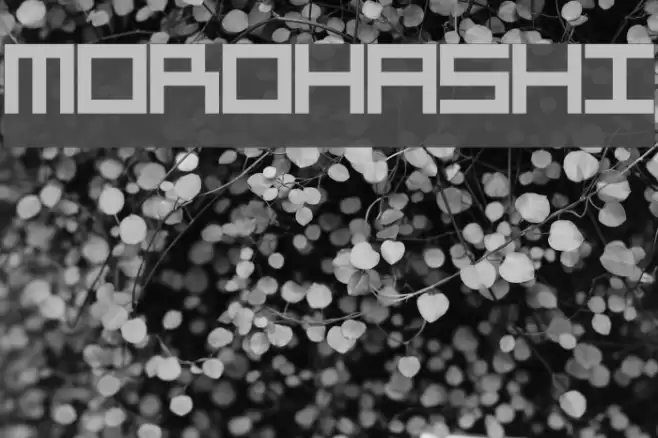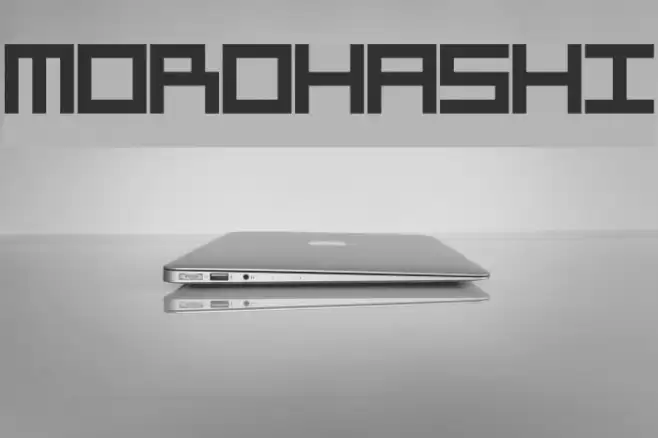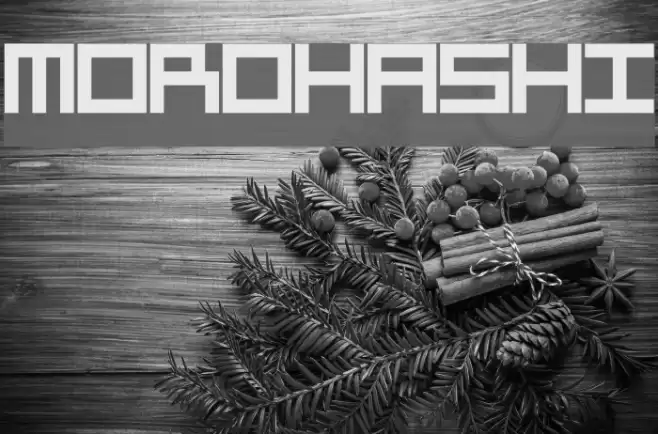
Morohashi Font
Morohashi Description
This font features a bold, geometric design with a pixelated, block-like appearance. Each character is constructed with sharp, angular edges and a consistent stroke width, giving it a digital, retro aesthetic reminiscent of early video game graphics. The uniformity in height and width across characters creates a cohesive and structured look. The font's style is both modern and nostalgic, making it ideal for projects that aim to evoke a sense of digital nostalgia or a futuristic theme. Its distinct, legible characters make it suitable for headlines and display purposes where a strong visual impact is desired.
A bold, geometric font with a pixelated, retro digital style from Uncategorized fonts.
- Proposed Projects: Ideal for video game graphics, tech-themed posters, digital art, and retro-futuristic designs.
- Overall Style: Modern, Retro
- Use Case: Headlines, Logos, Display text